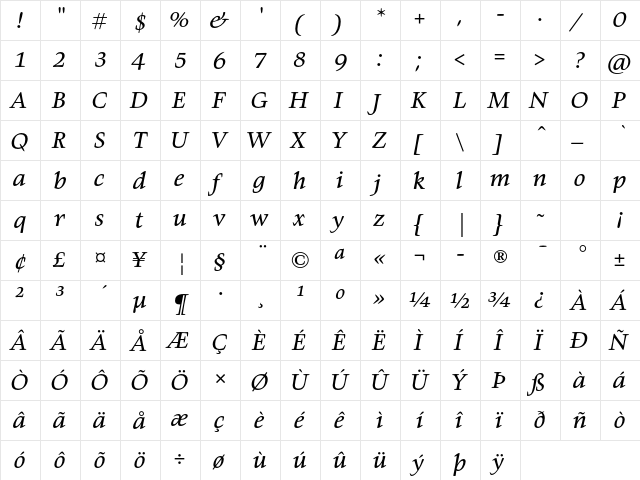
Givens Antiqua Std Italic Font Preview
Givens Antiqua Std Italic
Givens Antiqua Std Italic Font Details
| Designer | George Ryan |
Design Context for Givens Antiqua Std Typeface
Givens Antiqua Std is a composed and adaptable typeface that performs quietly and consistently across a wide range of design contexts. The dynamic lean of this cut emphasises speed and emphasis in any layout.
Pro Tip: Try Givens Antiqua Std for annotation and caption copy alongside an upright companion — the contrast in angle creates a dynamic but ordered typographic system.